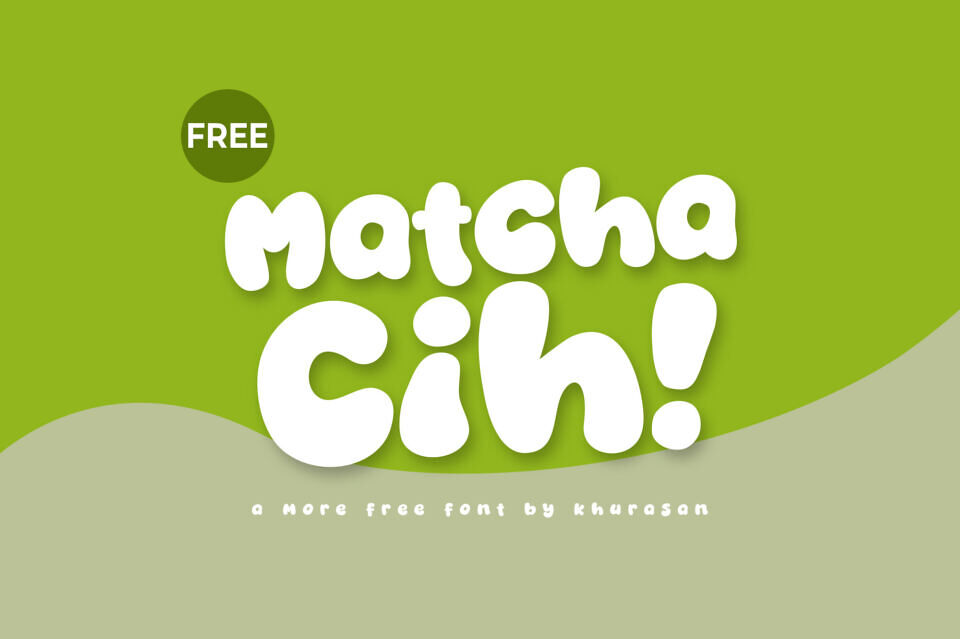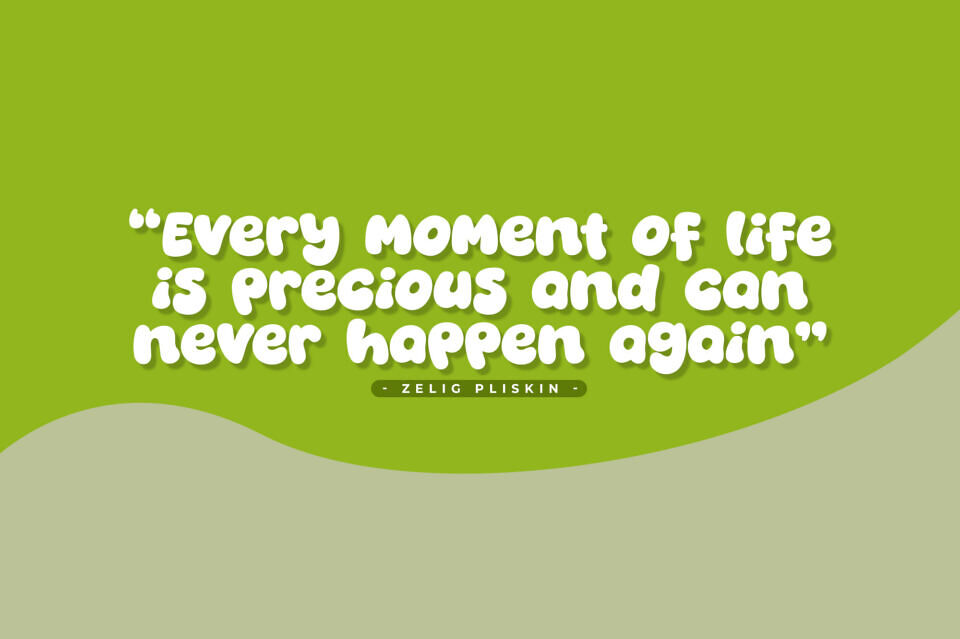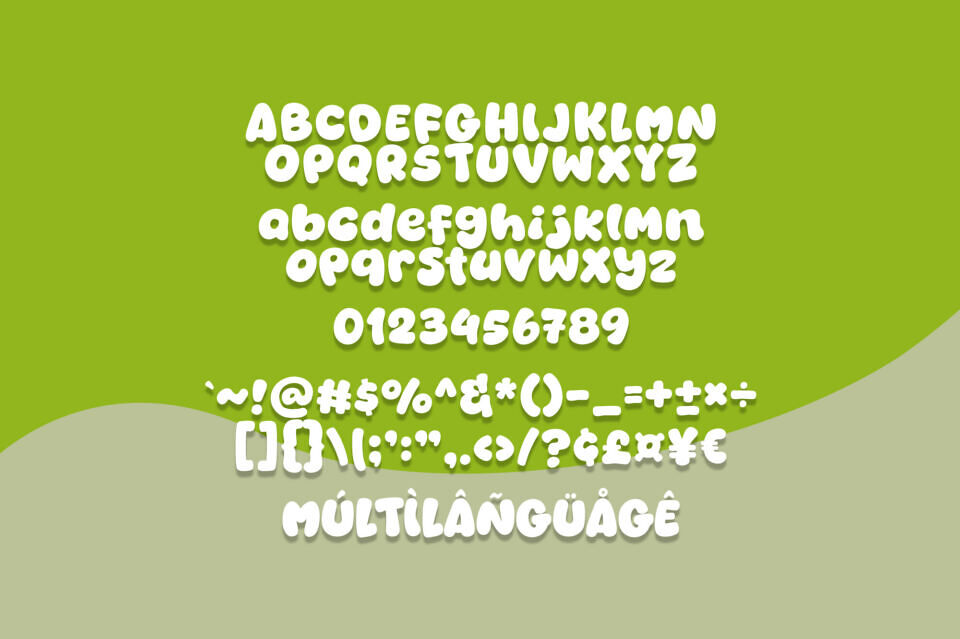
Sweeten your designs with Matcha Cih! This adorable bubble-style font features soft, rounded edges and a friendly personality.
Its smooth, plump characters are perfect for adding a playful and modern touch to any project. Whether you’re designing for kids or a trendy lifestyle brand, Matcha Cih brings a refreshing vibe to the table.